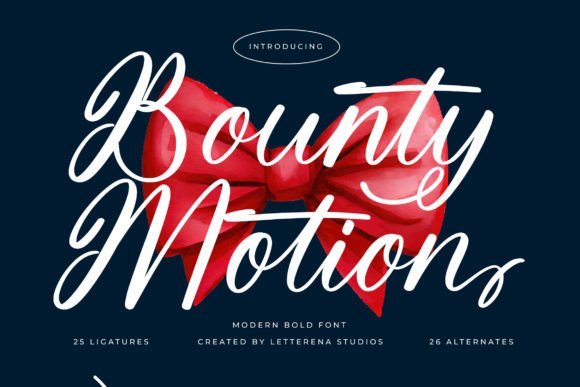
Unlock the Power of Luxury Script with Bounty Motion Font
Have you ever stared at a blank page, desperately searching for the perfect font to bring your creative vision to life? It’s a feeling we’re all too familiar with. But what if you had the key to unlocking a world of luxurious designs, effortlessly elevating your projects from ordinary to extraordinary?
Enter Bounty Motion Font, a stunning Luxury Script font from Letterena that’s designed to take your branding, homeware, and product packaging to the next level. With its modern bold style, this font is perfect for logos, quotes, posters, and any other project that demands a touch of elegance and sophistication. For designers, Bounty Motion Font is a valuable addition to their toolkit, offering a unique way to add a luxurious twist to their designs and stand out from the crowd.
Bounty Motion Font Key Features
- Font Family: Bounty Motion is a dynamic font family that includes multiple styles, from bold to light, to cater to various design needs.
- Character Set: The font includes a wide range of characters, including Latin, Cyrillic, and Greek alphabets, as well as punctuation and symbols.
- Unique Characteristics: Bounty Motion features a unique blend of modern and vintage elements, with dynamic lines and fluid curves that evoke a sense of movement and energy.
- Font Pairing: The font family is designed to be versatile and can be paired with a wide range of other fonts, from sans-serif to serif, to create visually appealing and harmonious designs.
Bounty Motion Font Review
I’ve had the chance to work with Bounty Motion Font, and overall, I’m quite impressed. ✨ The font’s dynamic motion effects make it perfect for creating eye-catching animations and grabbing attention. It’s ideal for social media graphics, promotional materials, and other projects where you want to make a statement.
- ✨ The motion effects are smooth and fluid, giving your designs a professional look.
- ✨ The font is highly customizable, allowing you to adjust the speed, direction, and other parameters to fit your needs.
- ✨ It’s available in a wide range of styles, from modern and sleek to playful and whimsical.
However, there are a few limitations to consider. ⚠️ The font can be quite demanding on system resources, especially when used in complex animations or large-scale designs. Additionally, some users may find the motion effects to be overwhelming or distracting, especially if not used judiciously.
Overall, I think Bounty Motion Font is a great addition to any designer’s toolkit. With its unique motion effects and high level of customization, it’s perfect for creating engaging and dynamic designs. Just be mindful of its limitations and use it in moderation to get the best results.
Use the Bounty Motion Font to create eye-catching headlines and titles.
Use the animation features to draw attention to specific areas of your design.
Use the Bounty Motion Font for:
- Creating attention-grabbing headlines and titles.
- Adding visual interest to presentations and documents.
- Creating animated text